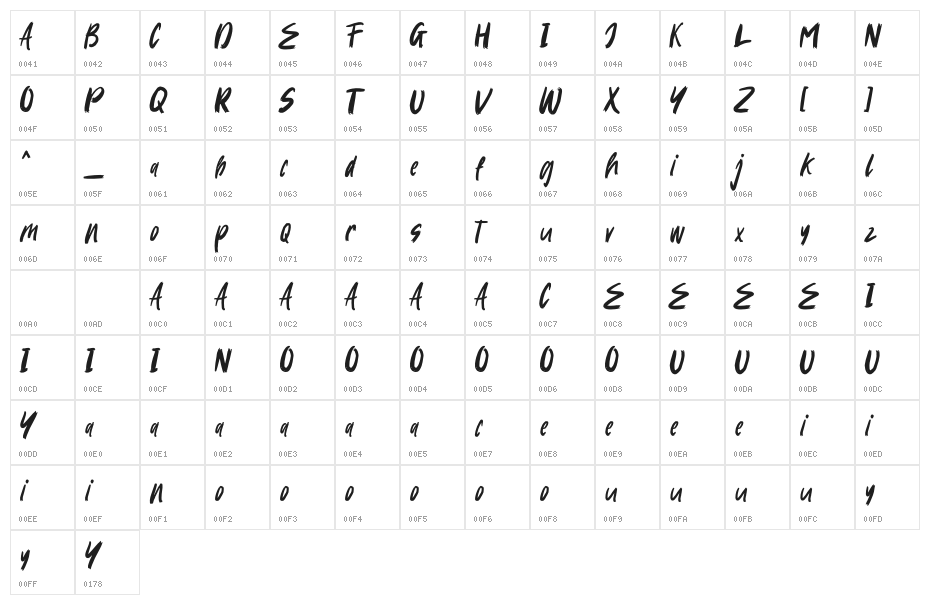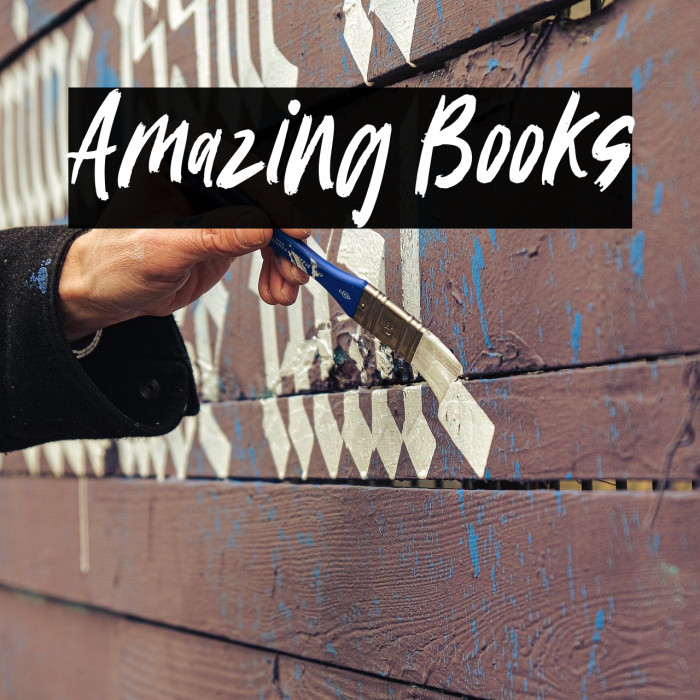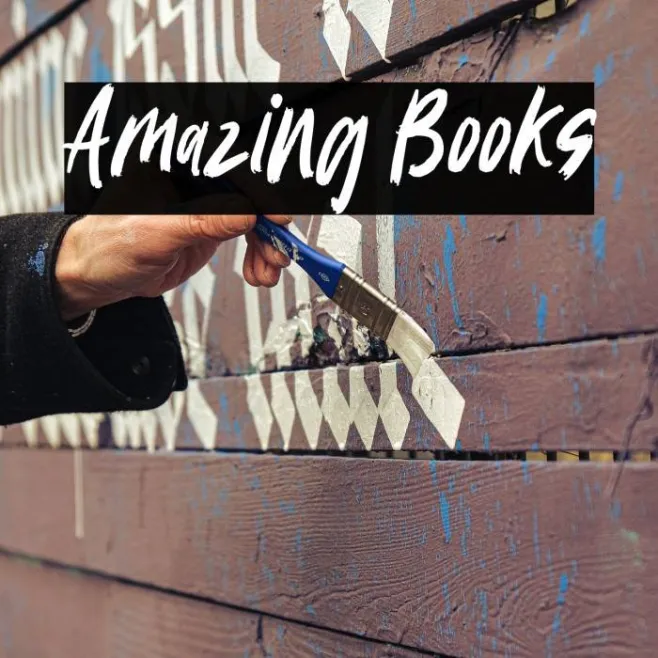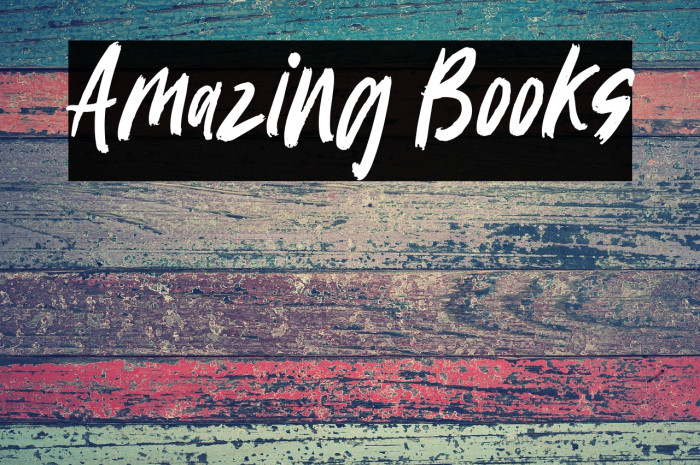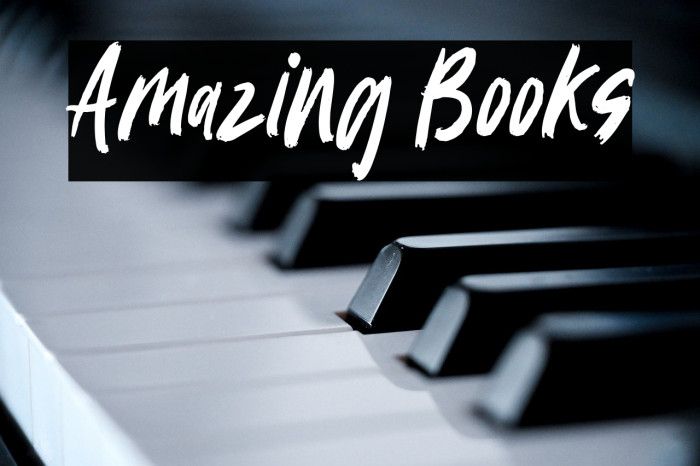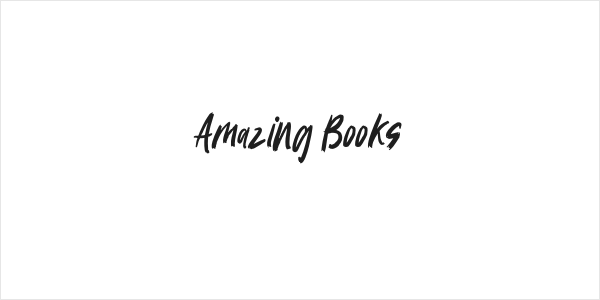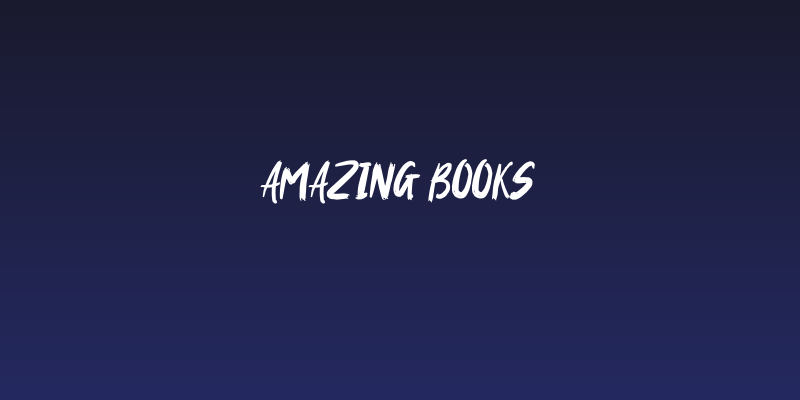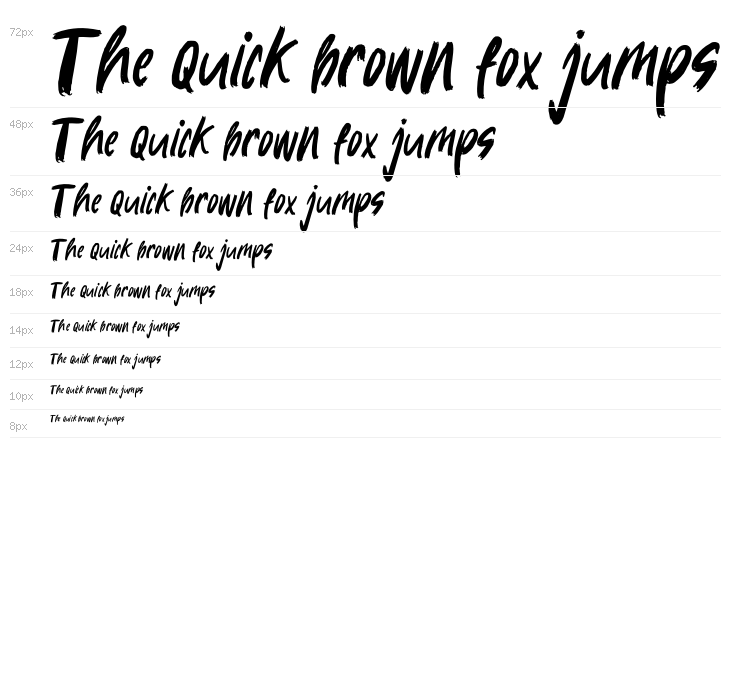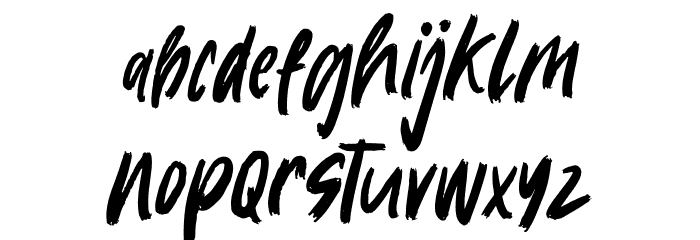
Amazing Books Font
Amazing Books Description
This font features a bold, expressive brush style that conveys a sense of energy and dynamism. The strokes are thick and uneven, giving it a hand-painted appearance that is both artistic and informal. The uppercase letters are particularly striking, with dramatic curves and angles that add to the font's overall impact. The lowercase letters maintain the same boldness, ensuring consistency throughout. The lack of special characters suggests a focus on alphabetic text, making it ideal for creative projects. Its unique style is perfect for making a statement, whether in headlines, posters, or branding materials.
| Proposed Projects | Ideal for creative projects such as posters, branding, and headlines where a bold statement is needed. |